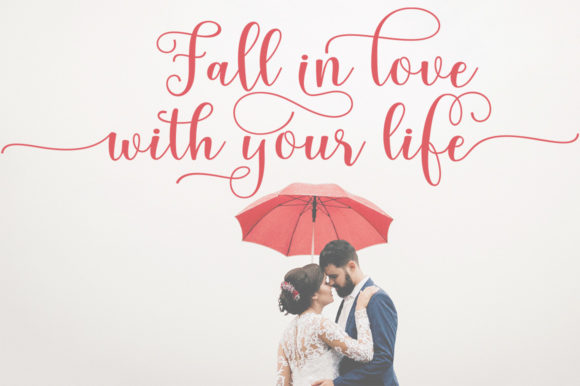
Love Island Duo Font
db-ku.com - Script & Handwritten -- Love Island Duo is an incredibly relaxed, lovely and flowing duo font (sans serif and script). This font is PUA encoded which means you can access all of the glyphs and swashes with ease! Fall in love with its incredibly versatile style and use it to create spectacular designs!